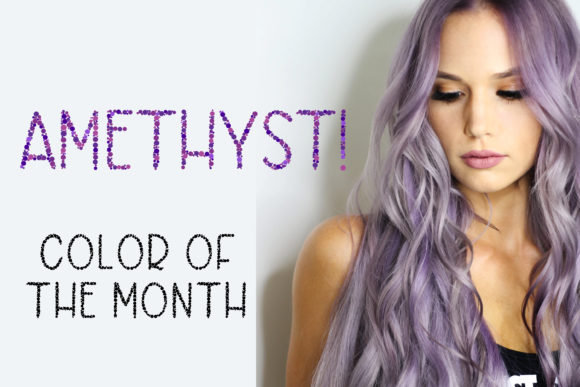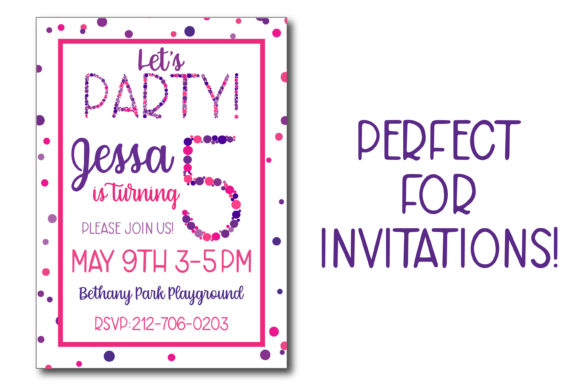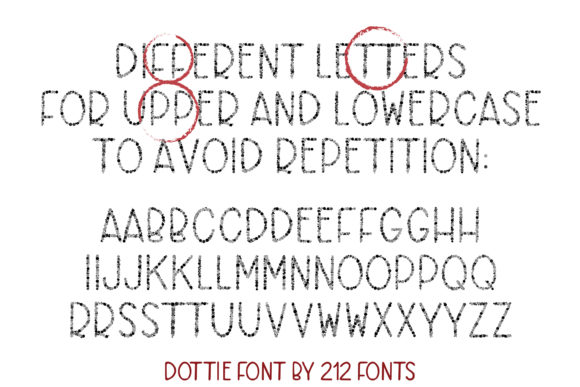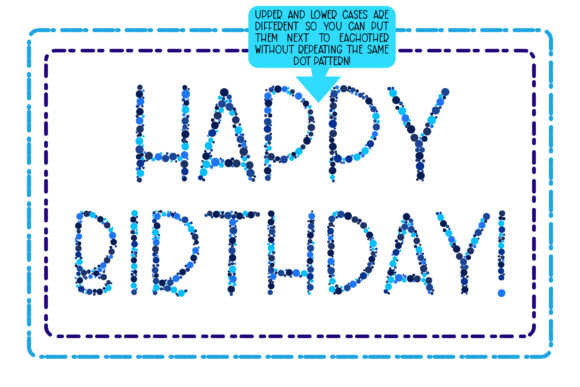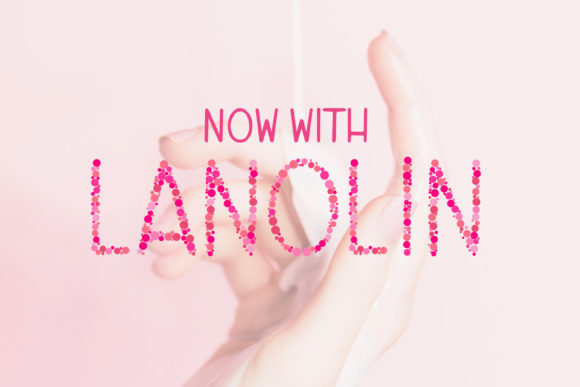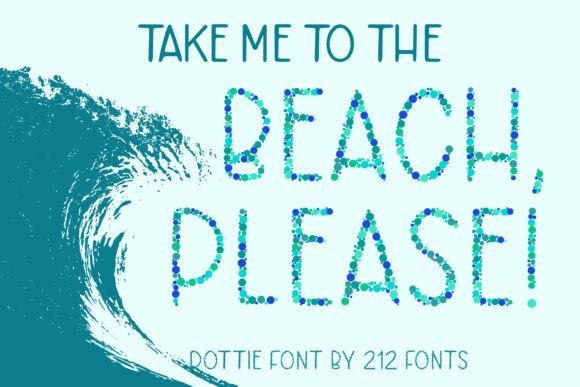
Introducing Dottie Font: Add a Splash of Creativity to Your Designs!
Are you tired of using the same old fonts in your design projects? Look no further than Dottie Font, a fun and quirky font made entirely of dots! This unique and creative font is perfect for designers and crafters who want to add a touch of personality to their work. In this article, we’ll dive into the features and benefits of Dottie Font, as well as provide tips on how to use it in your designs.
What is Dottie Font?
Dottie Font is a color font, specifically an Opentype-SVG font, which means it’s made up of vector graphics that can be scaled up or down without losing any quality. This font is perfect for designs that require a playful and whimsical touch, such as party invitations, social media graphics, and craft projects.
Key Features of Dottie Font
- Unique Dot Design: Dottie Font is made up of tiny dots that come together to form letters and numbers. This design gives the font a fun and quirky feel that’s sure to stand out.
- Scalable: Because Dottie Font is a vector graphic, it can be scaled up or down without losing any quality. This makes it perfect for designs that need to be used in a variety of sizes.
Design Ideas Using Dottie Font
Dottie Font is a versatile font that can be used in a variety of design projects. Here are a few ideas to get you started:
- Party Invitations: Use Dottie Font to create fun and playful party invitations that set the tone for a festive celebration.
- Social Media Graphics: Add a touch of personality to your social media graphics with Dottie Font. Perfect for creating engaging and shareable content.
- Craft Projects: Dottie Font is perfect for crafters who want to add a personal touch to their projects. Use it to create custom signs, cards, and more.
Dottie Font is a unique and creative font that’s perfect for designers and crafters who want to add a splash of personality to their work. With its fun and quirky dot design, scalable vector graphics, and compatibility with a range of design software, Dottie Font is sure to become a favorite in your design arsenal. So why wait? Download Dottie Font today and start adding a touch of creativity to your designs!